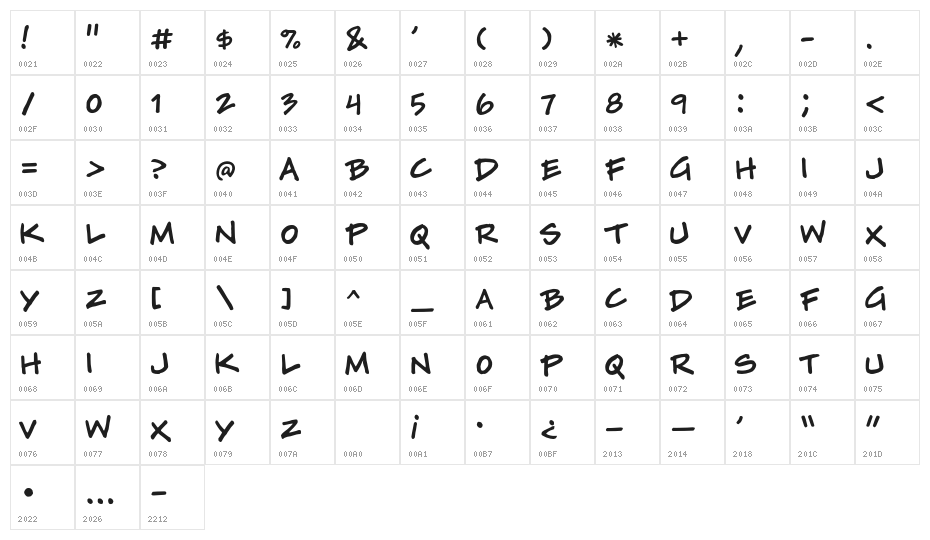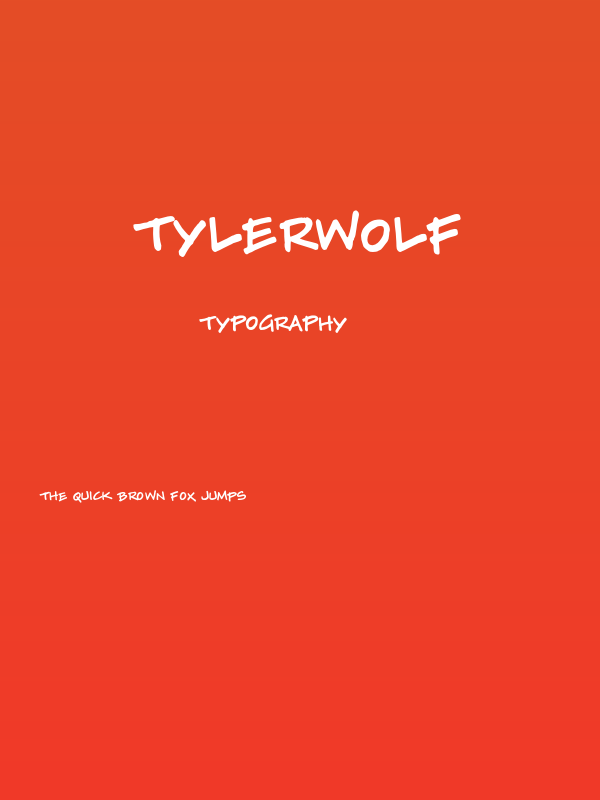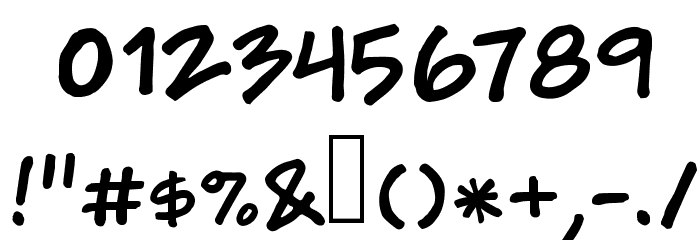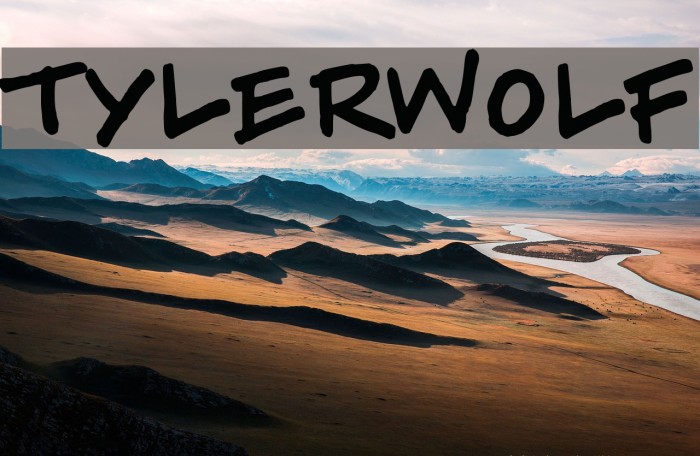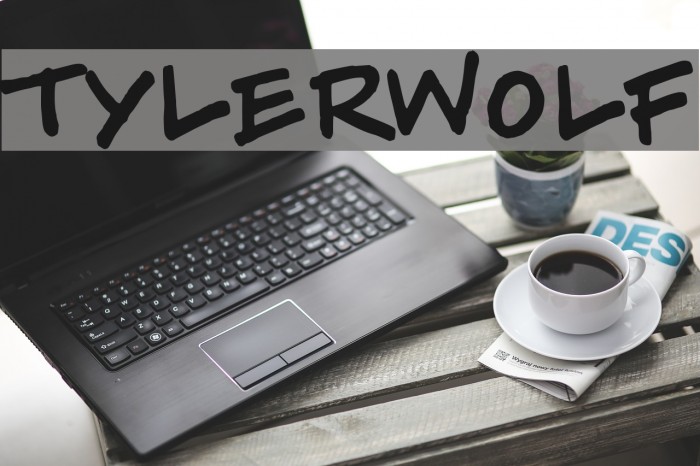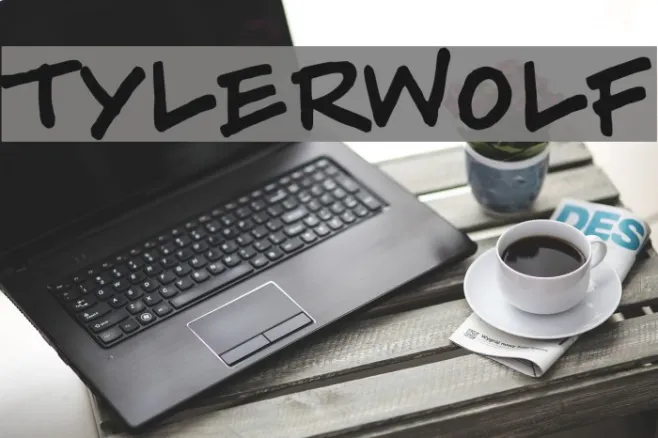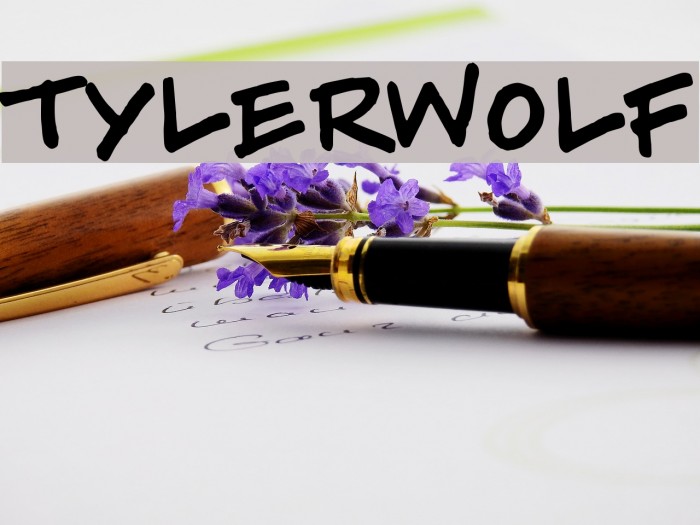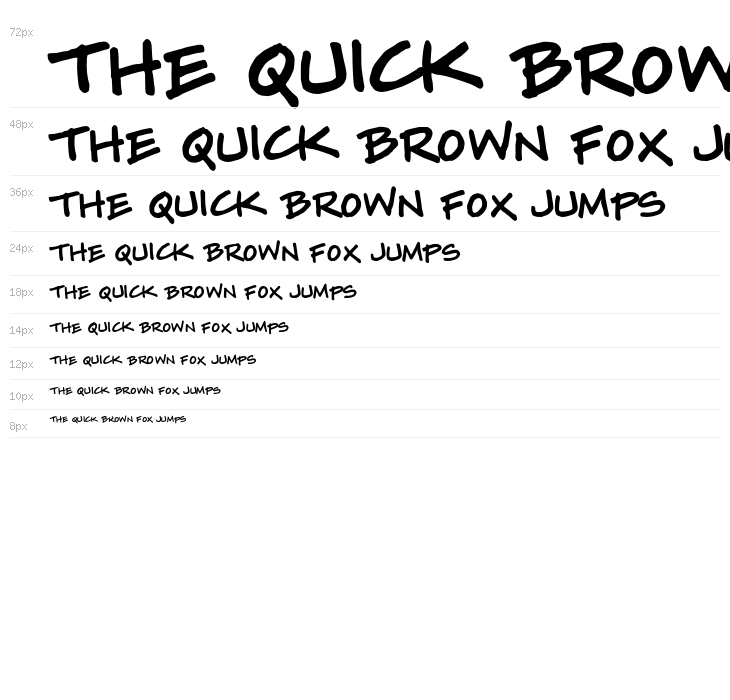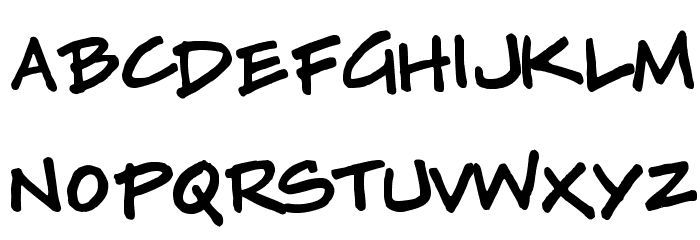
Tylerwolf Font
Tylerwolf Description
This font exhibits a playful and dynamic handwritten style, characterized by its bold and slightly irregular strokes. The letters have a casual, informal appearance, with a slight slant that adds to its energetic feel. The uppercase and lowercase letters maintain a consistent style, with rounded edges and a smooth flow. Numbers and special characters follow the same aesthetic, ensuring a cohesive look across all elements. The font's unique personality makes it stand out, offering a friendly and approachable vibe.
| Use Case | Logos, Headlines, Informal Text |
| Proposed Projects | Ideal for projects that require a personal touch, such as greeting cards, invitations, children's books, and playful branding materials. |